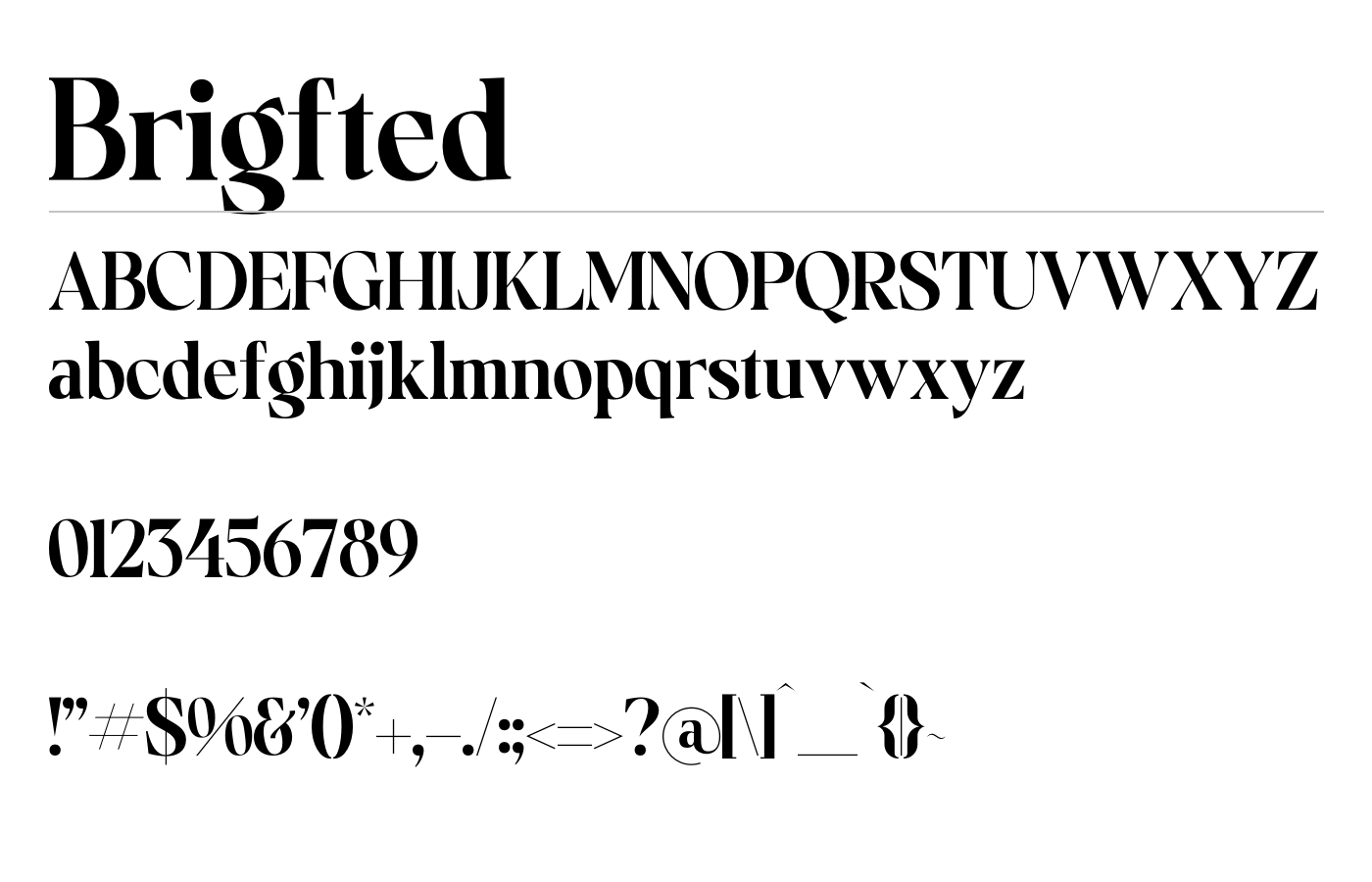
Brigfted is a refined serif font with a classic, modern Didone style featuring high contrast between thick and thin strokes and sharp, elegant serifs. Its sleek letterforms, including double-story a and g, along with lining numbers, lend a sophisticated and luxurious feel ideal for fashion branding, editorial headlines, and upscale packaging. This font brings a stylish, formal tone that works beautifully in contexts needing a polished and memorable appearance.
Brigfted Font
About Brigfted Font